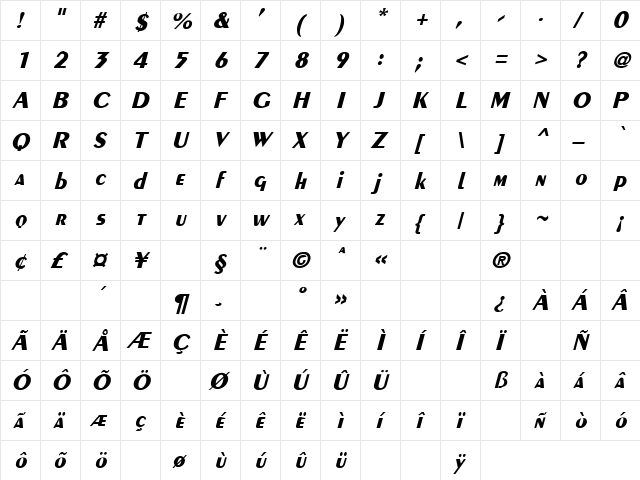
Physical 3 Italic
Design Context for Physical 3 Typeface
Physical 3 takes a measured approach to typography — its balanced proportions and neutral character make it a reliable workhorse for both digital and print work. The dynamic lean of this cut emphasises speed and emphasis in any layout.